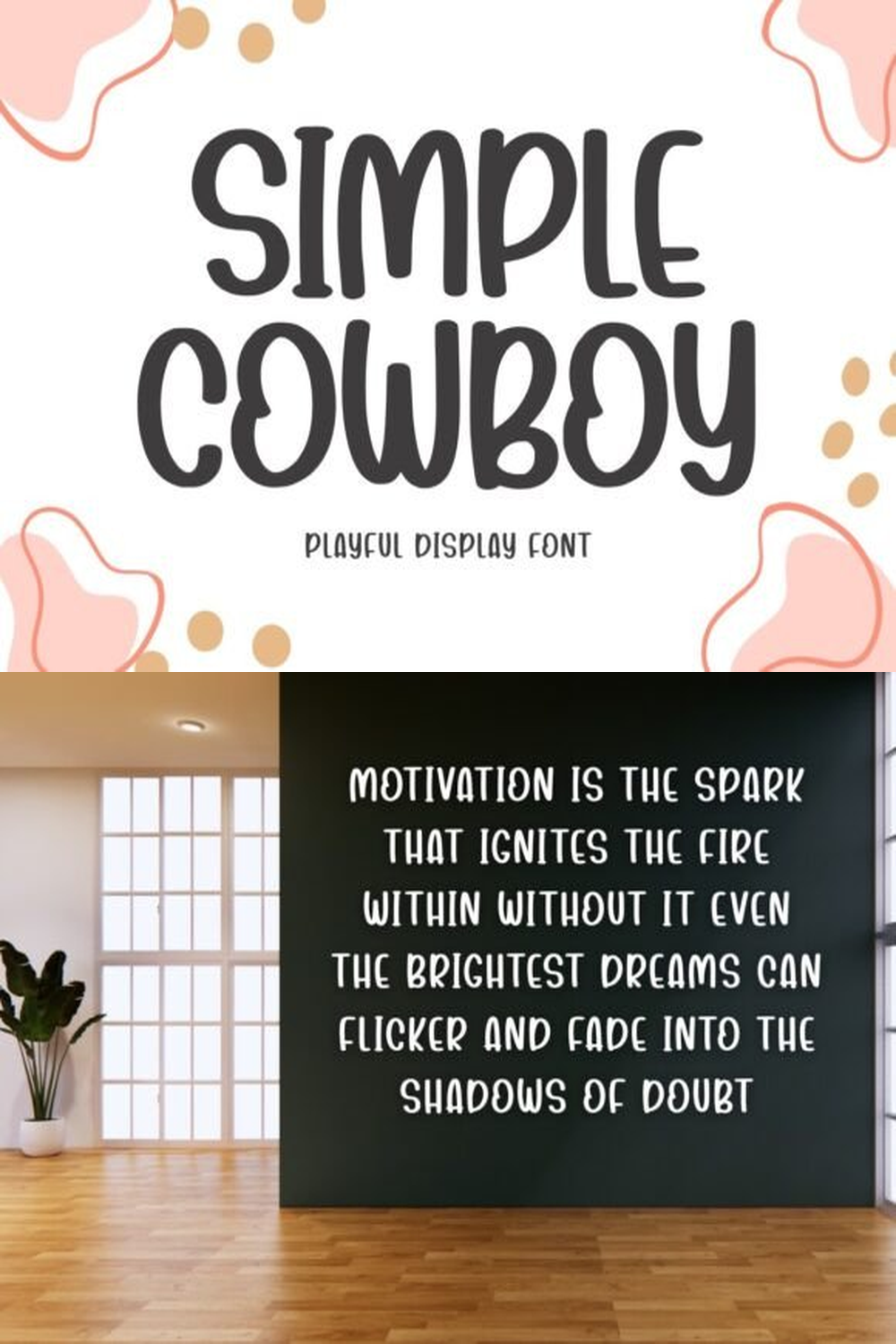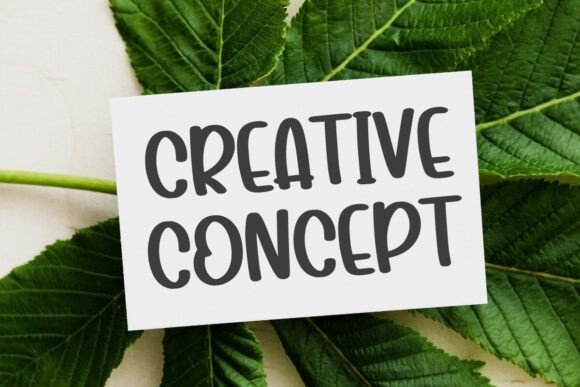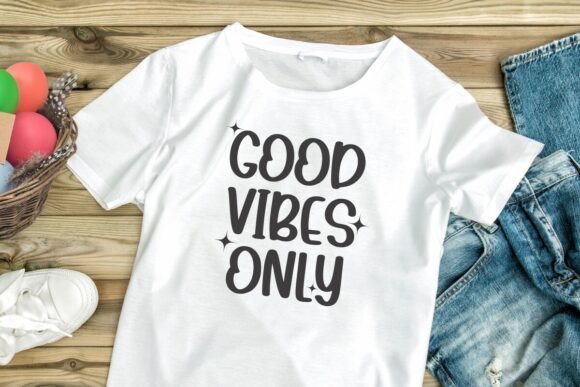
Simple Cowboy Font
About the Simple Cowboy Font
Welcome to the world of Simple Cowboy Font, a typeface that will inspire your next great project. Simple Cowboy is a cute, bold display font. Add this bold font to your design and watch how it brings it to life. Get inspired by her unique and beautiful style and add it to your favorite designs!